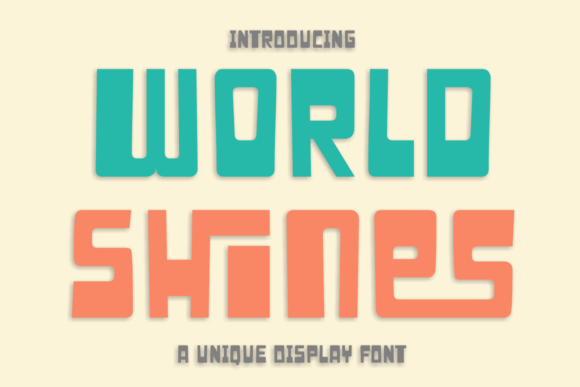
Step into a world of enchanting typography with World Shines Font, a striking display font created by Rian (7NTypes). Be captivated by its distinctive design that radiates playful charm and endless creativity, transforming your projects into masterpieces.
With its whimsical strokes, World Shines Font breathes life into headlines, logos, and other display elements, evoking a sense of joy and intrigue. Let your designs shine with a touch of unique expression and personality.
Unleash your imagination and explore the limitless possibilities of this captivating font. Let World Shines Font ignite your creative passions, adding a spark of originality to everything you create. Embrace its captivating features to convey powerful messages and create designs that captivate and inspire.
World Shines Font is not just a collection of letters and symbols; it's a gateway to a world of storytelling and visual delight. Elevate your designs to new heights with this enchanting display font that promises to leave a lasting impression.
Don't settle for ordinary; embrace the extraordinary with World Shines Font. It's time to let your designs radiate with playful charm and unmatched creativity. Experience the joy of creating designs that speak volumes and leave a lasting impact on your audience.